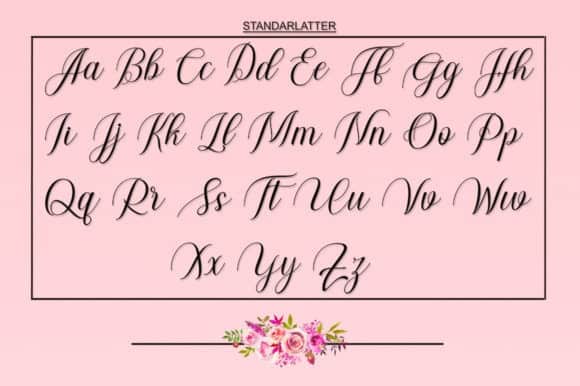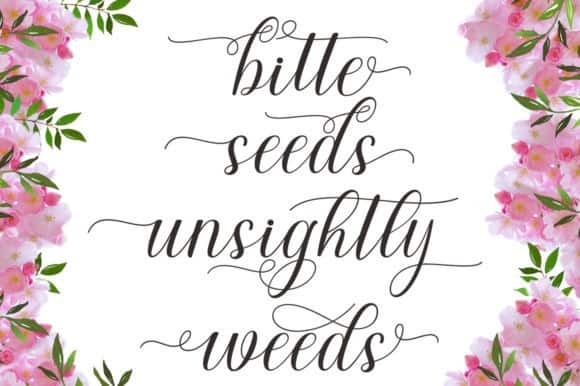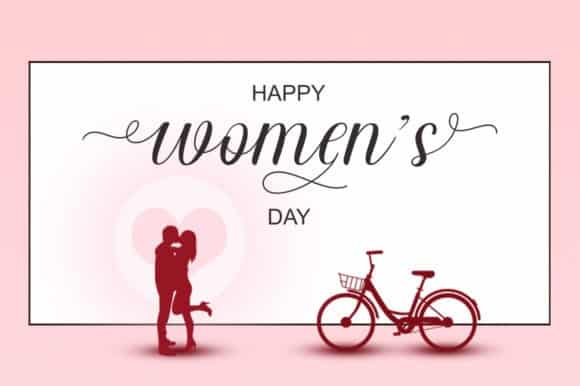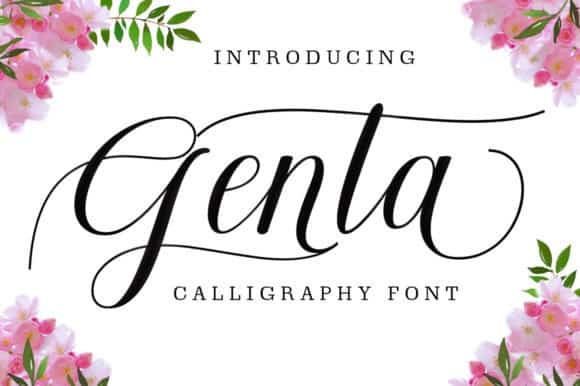
Genta Calligraphy Font
Genta Calligraphy Font is an elegant, cute and feminine handwritten typeface. The alternative characters were divided into several Open Type features such as Swash, Stylistic Sets, Stylistic Alternates, Contextual Alternates. It is PUA encoded which means you can access all of the glyphs and swashes with ease! It features a varying baseline, smooth lines, gorgeous glyphs and stunning alternates. It maintains its classy calligraphic influences while feeling contemporary and fresh. Fall in love with Genta and bring your projects to the highest levels!